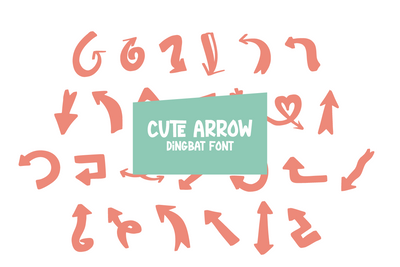
Cute Arrow - Dingbat Font
Cute Arrow is a unique and creative dingbat font. This font is inspired by modern doodle style. This font contains glyphs of various arrow shapes.